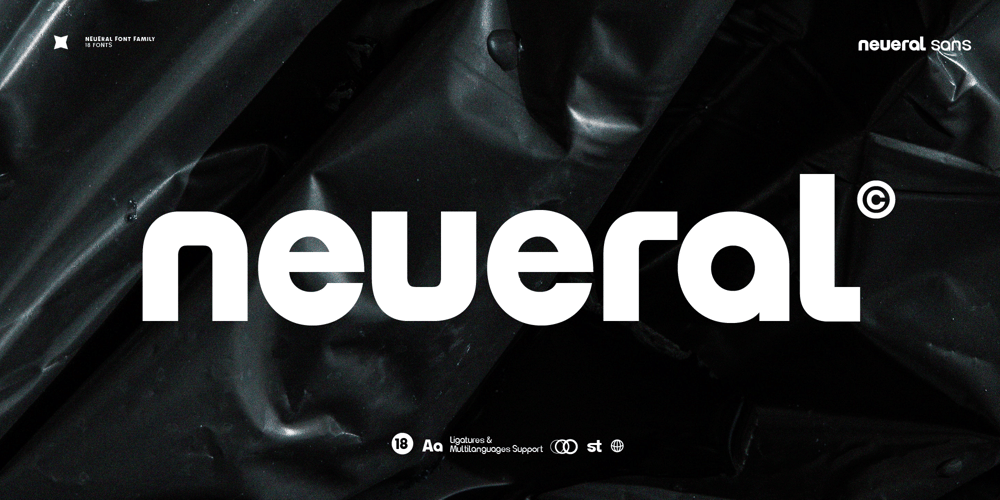
Fd Neueral
Fd Neueral font
Fd Neueral Font Family was designed by Ramandhani Nugraha and published by Fortunes Co. Fd Neueral contains 18 styles and family package options. Neueral is a semi-round and geometric sans serif font, with flexibility and modern every glyphs, neutral font variable so it is very functional in making logo designs, article, wayfinding, system fonts, branding, business cards and many others. There are 18 fonts including Latin simple ligatures